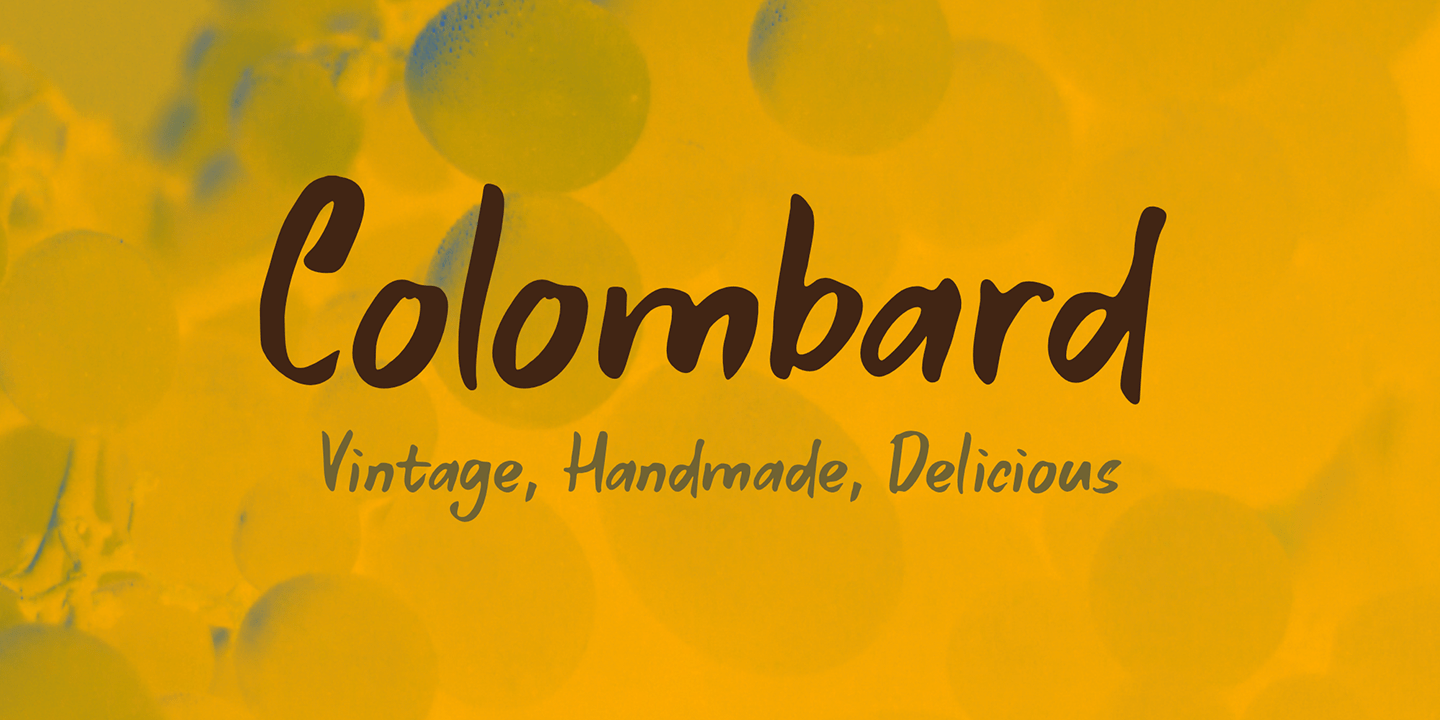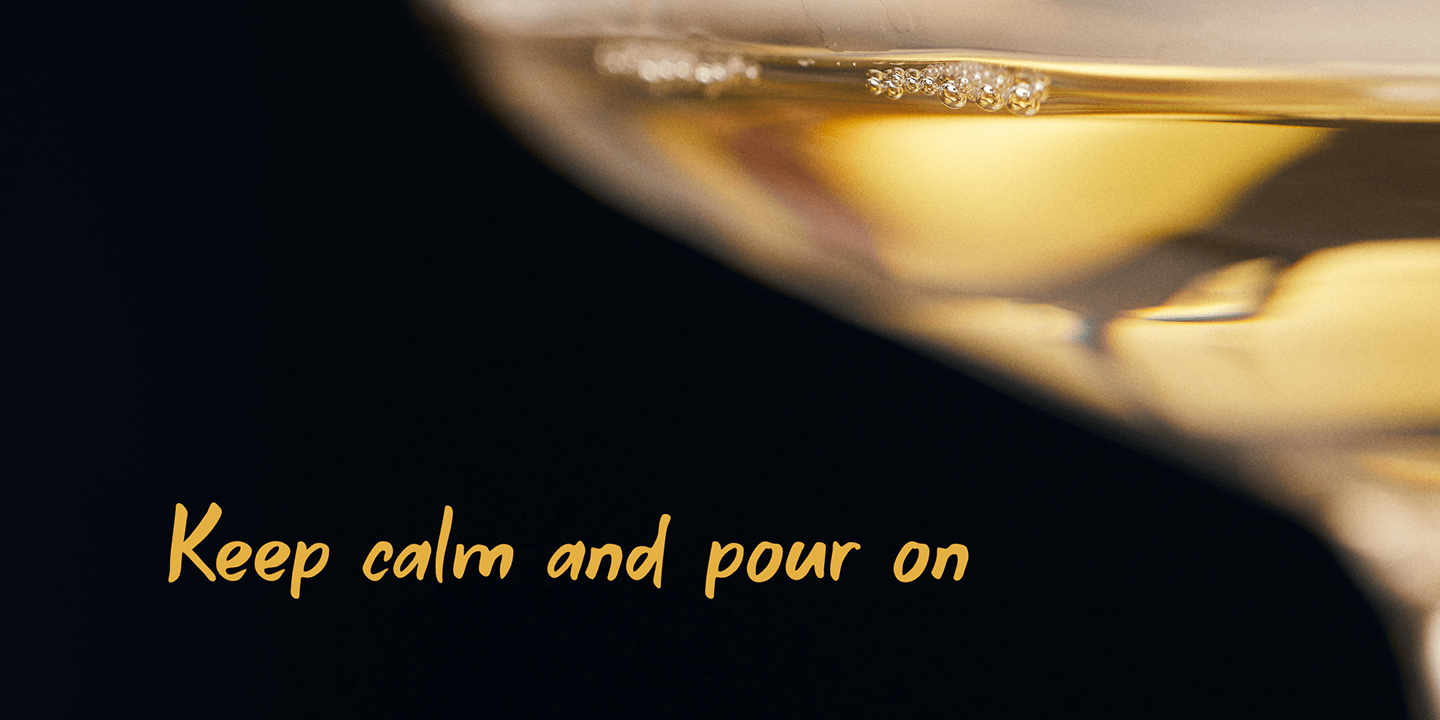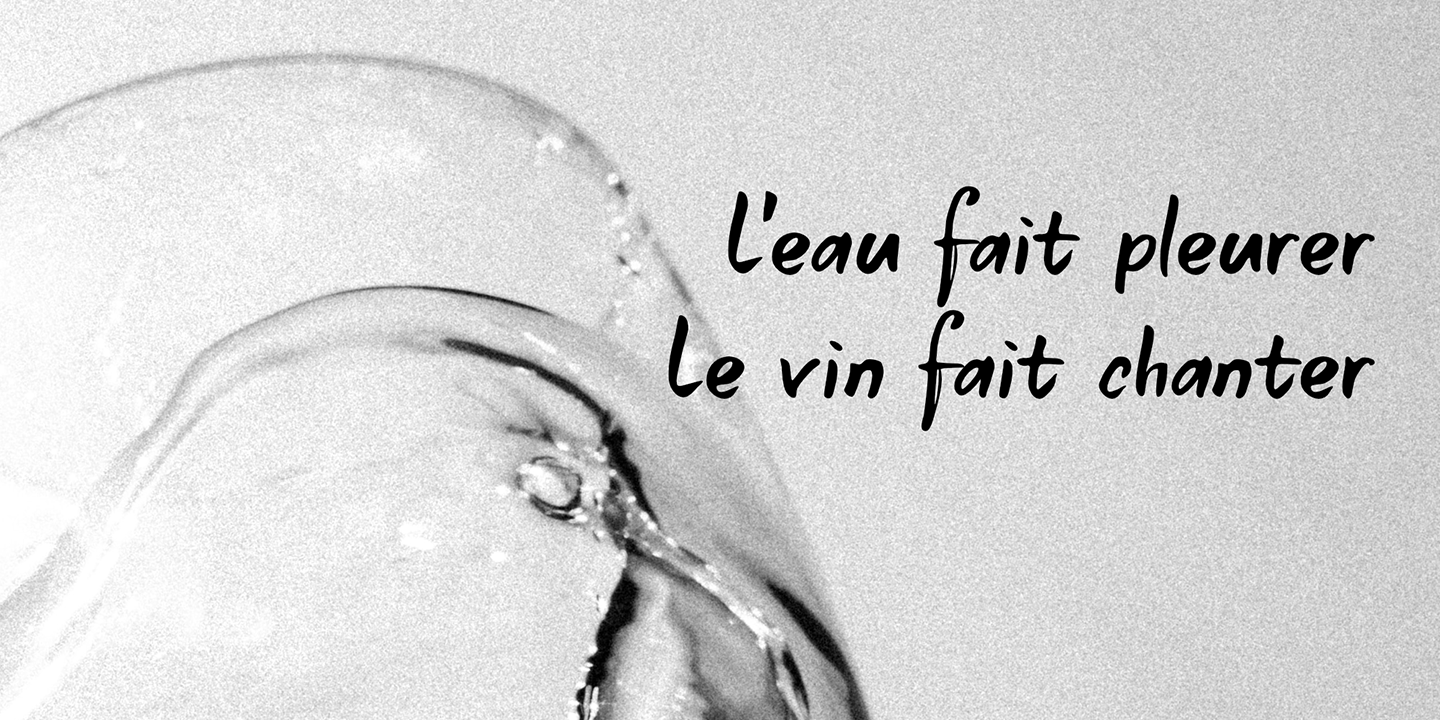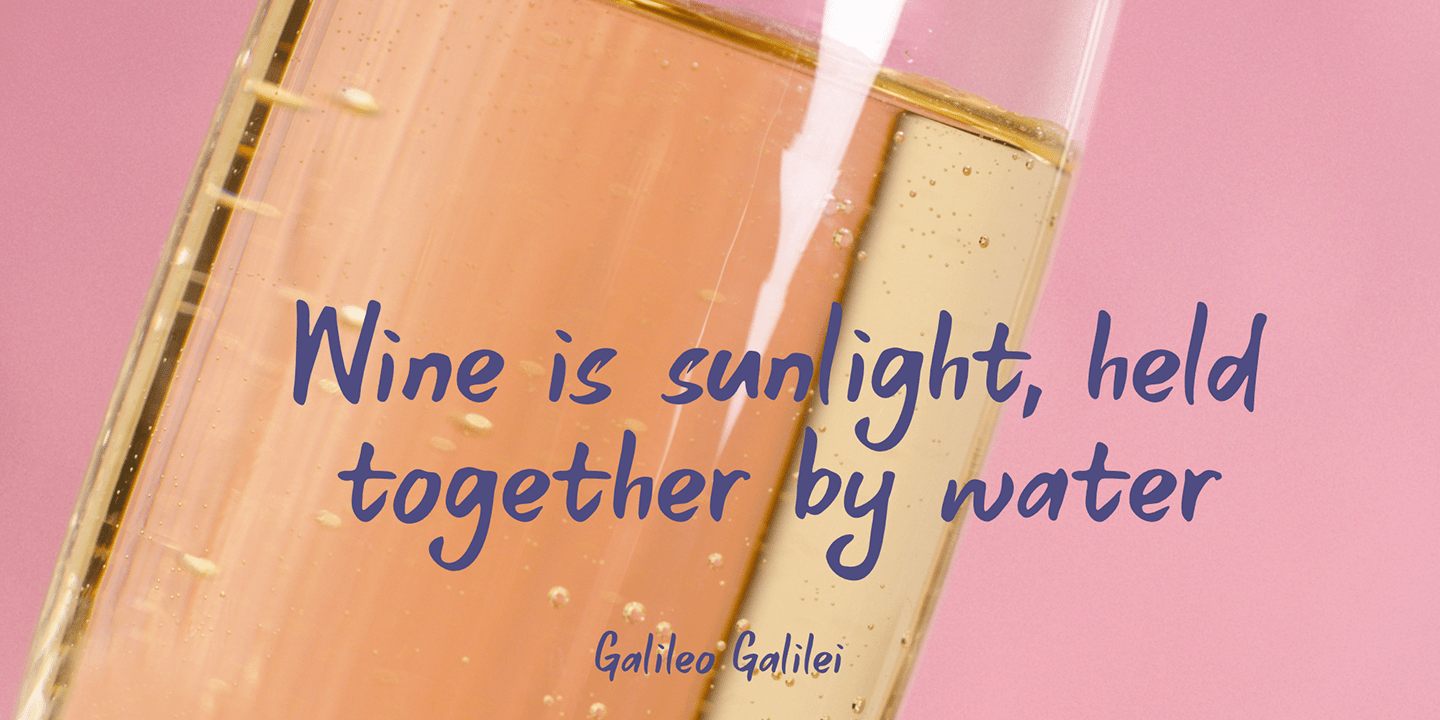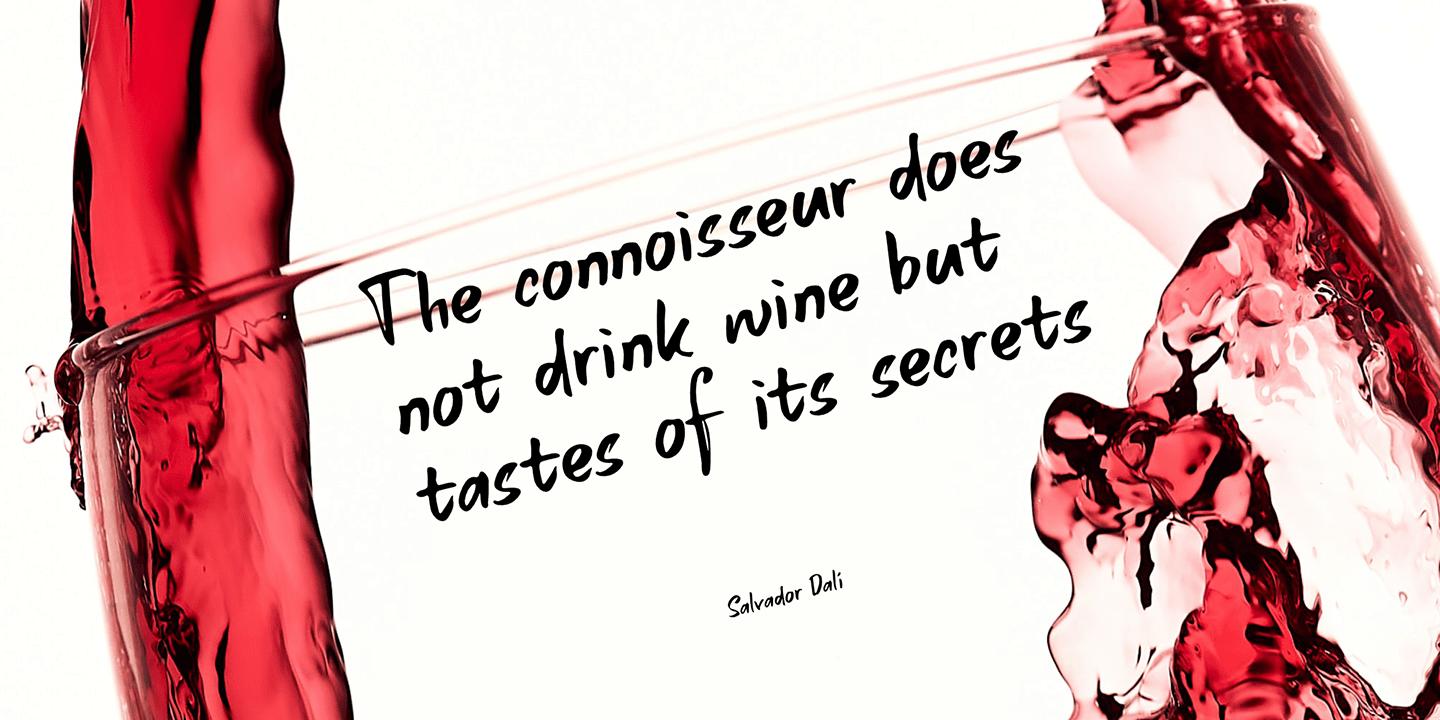
Colombard
The other day I drank a glass of white wine, which was partly made with Colombard grapes. When I created this font, I needed a bit of a ?posh? name, so I settled on Colombard.
Colombard is a nice, handwritten font. Quite elegant, but cheeky at the same time. It comes with extensive language support and a full set of Discretionary Ligatures for double letter combinations.